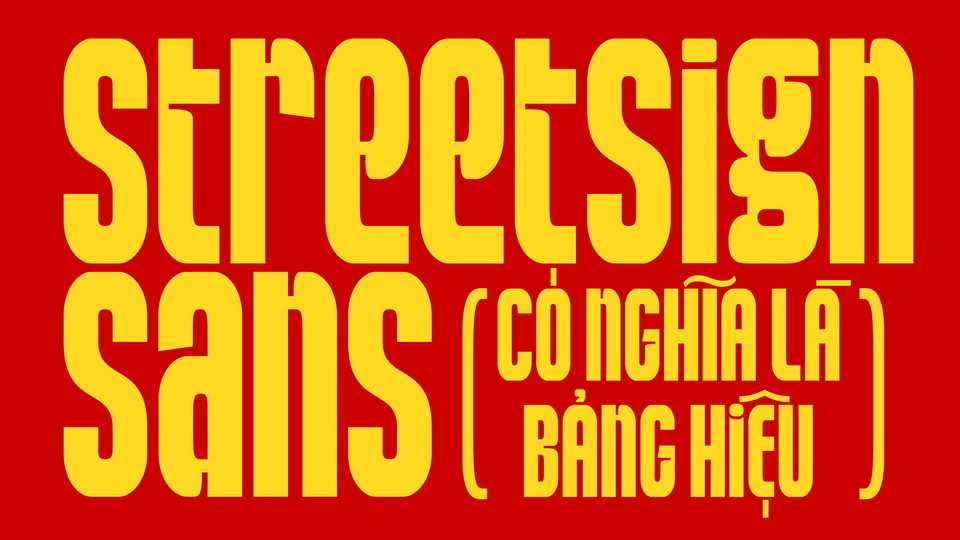
Download StreetSign Sans font, a bold typeface built from the ground up to support Vietnamese language. StreetSign Sans is inspired by the 80s-90s Vietnamese hand-painted billboards and street signs.
Designer: Harry Dinh